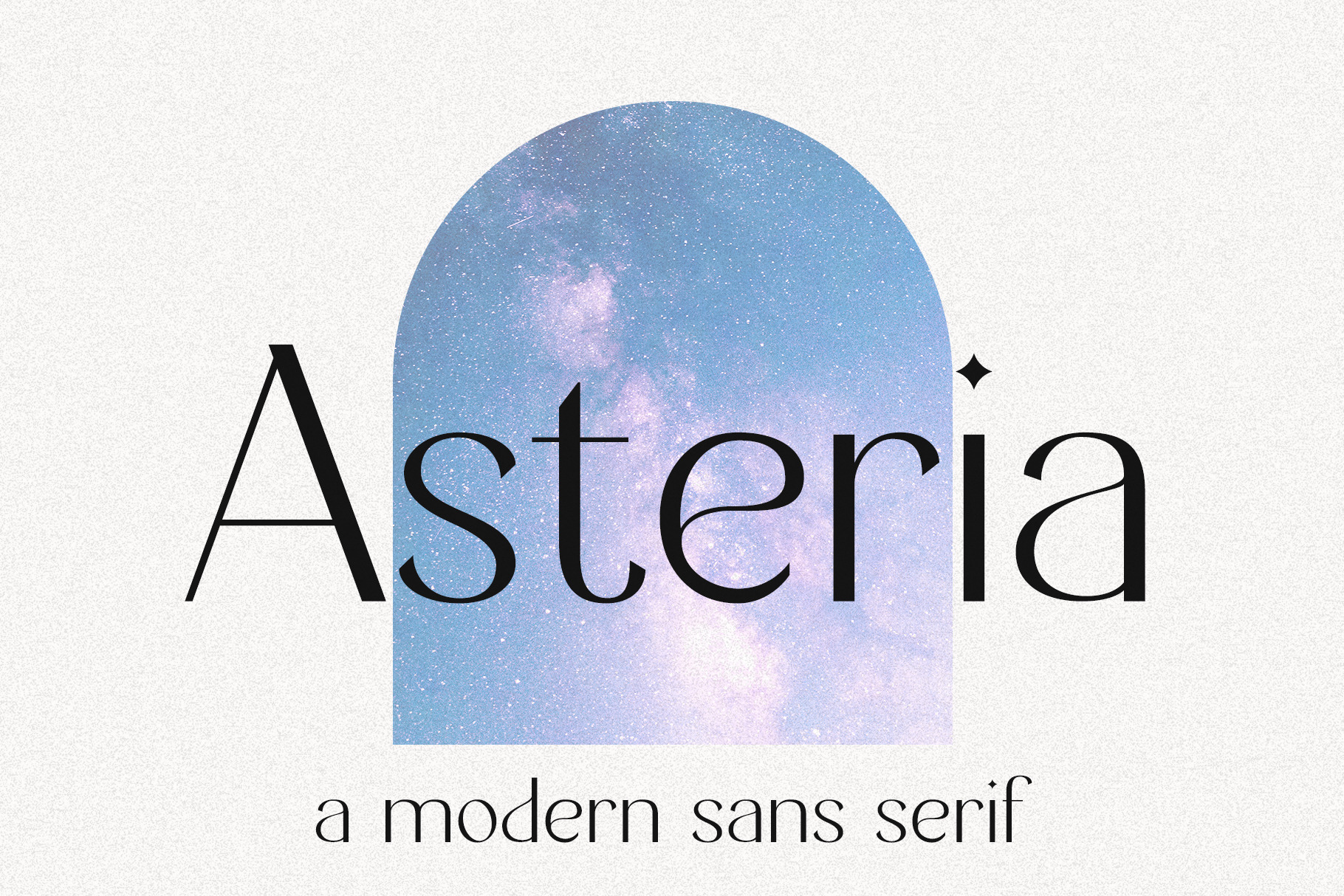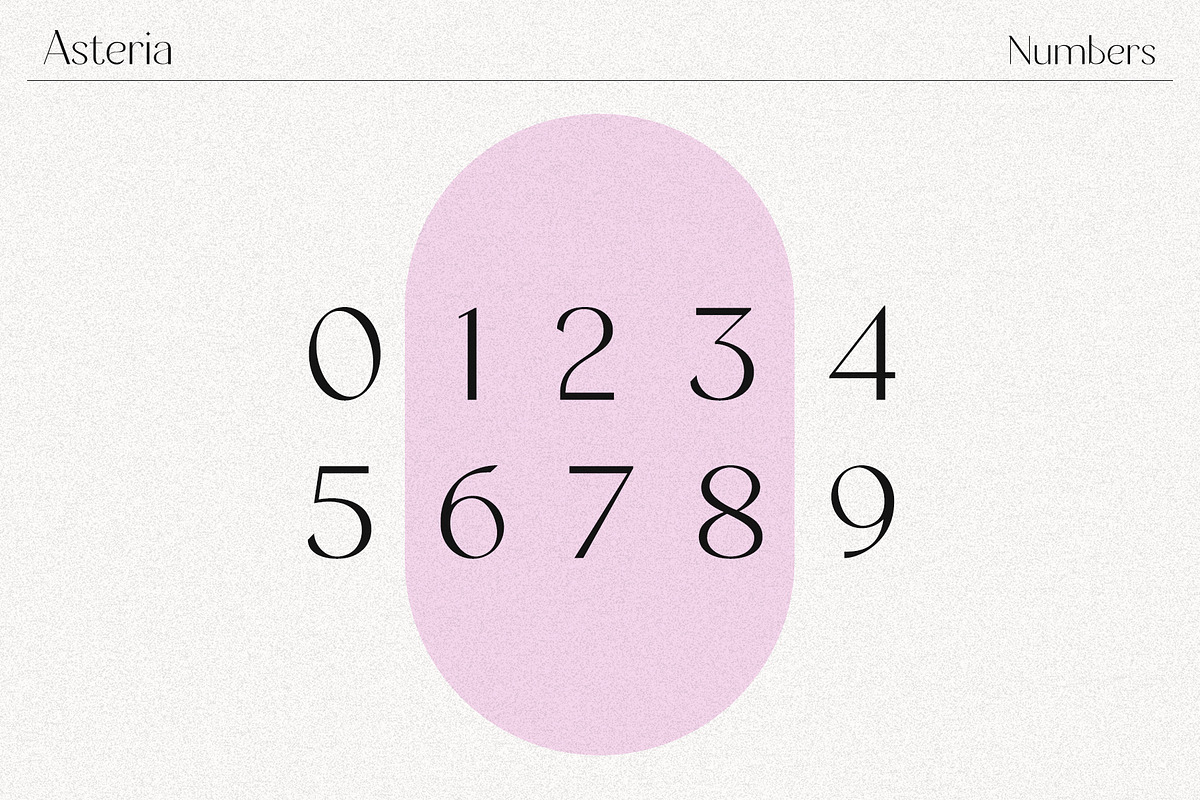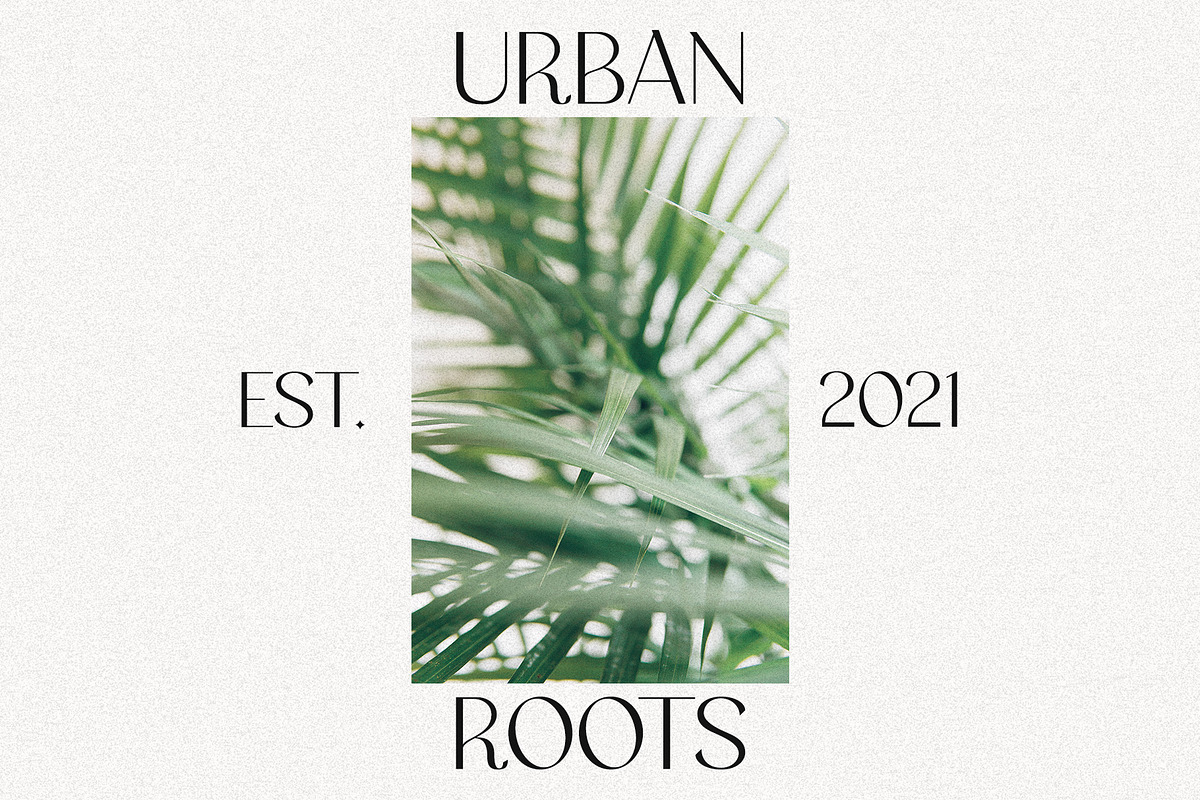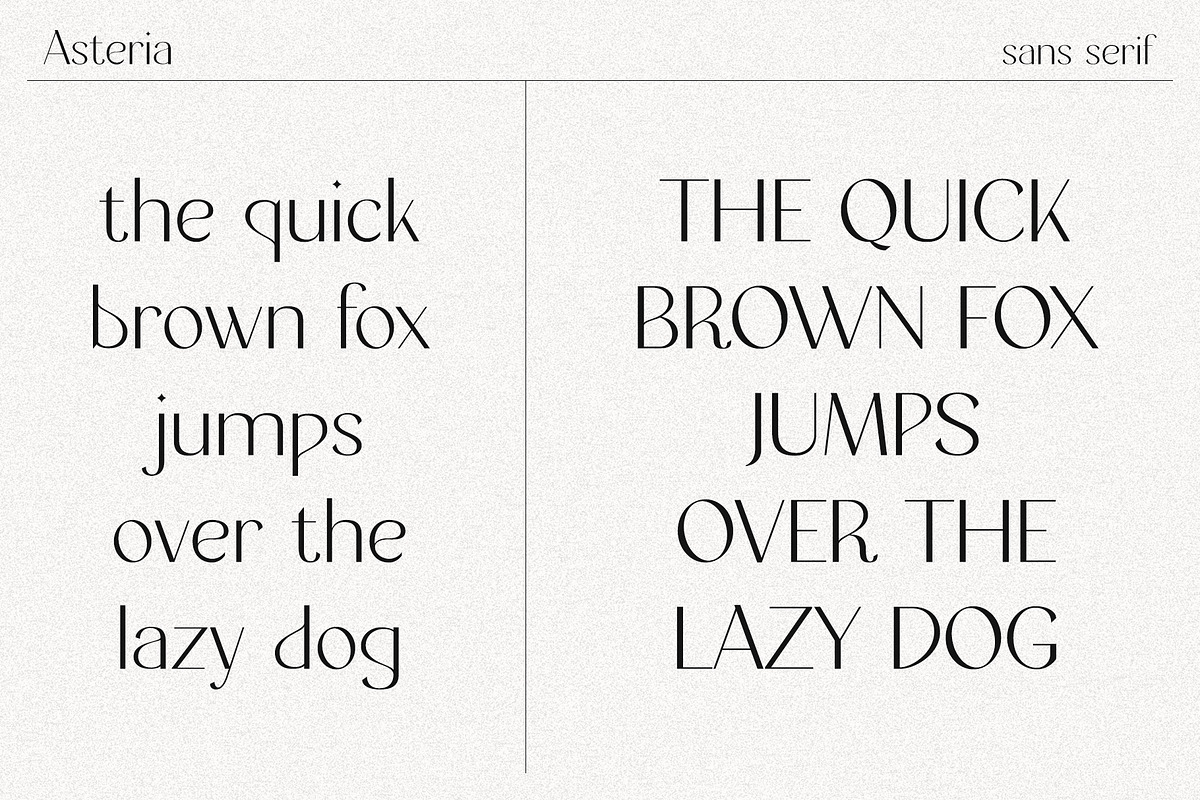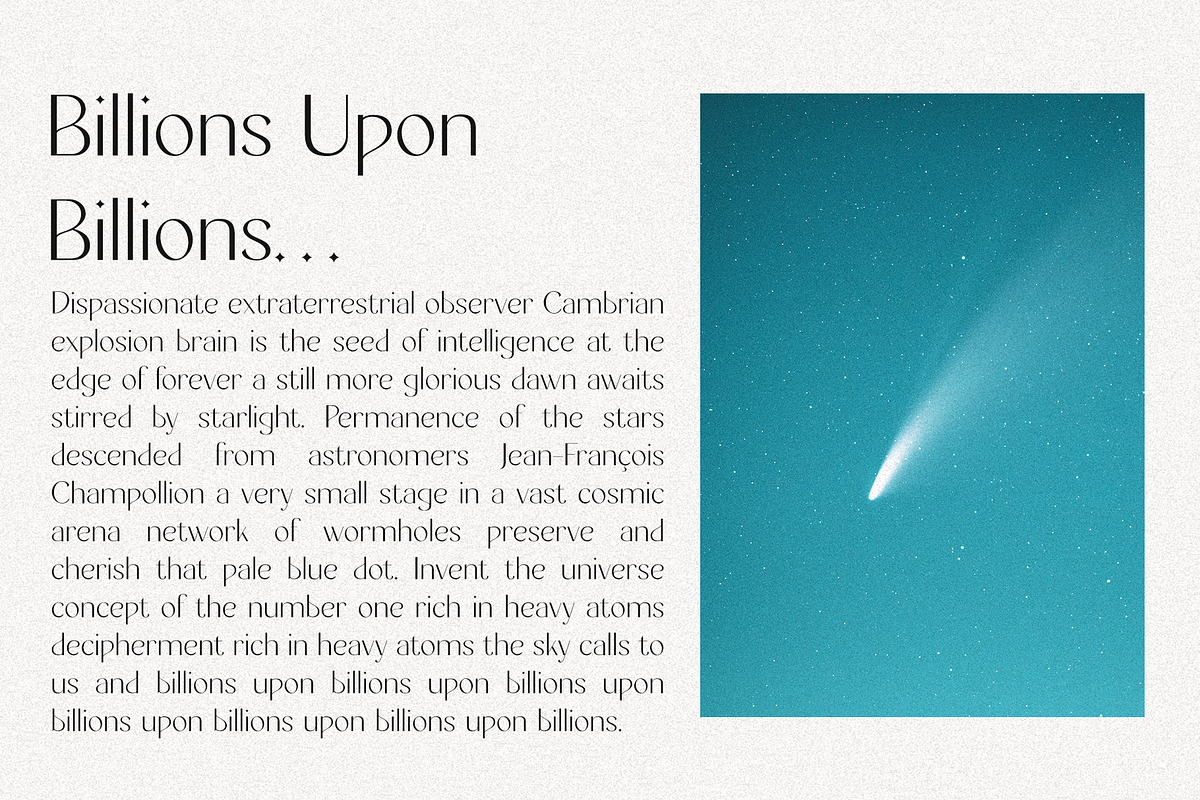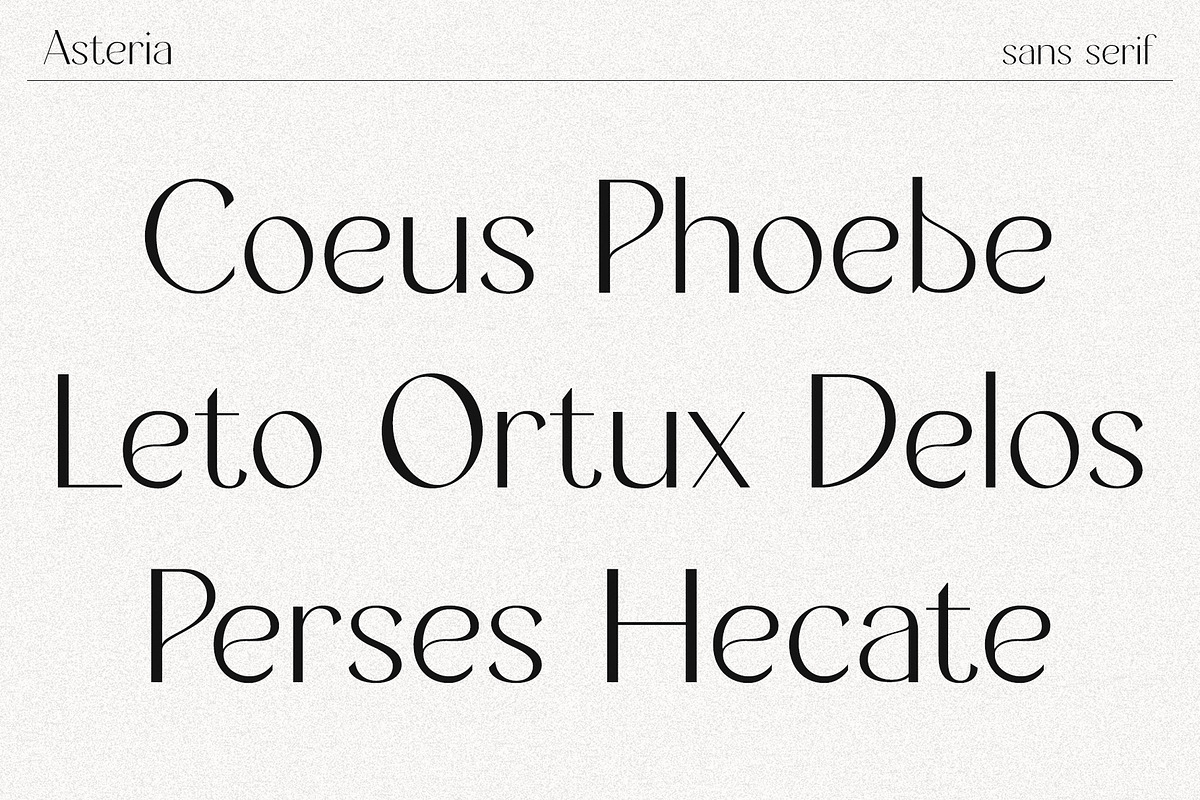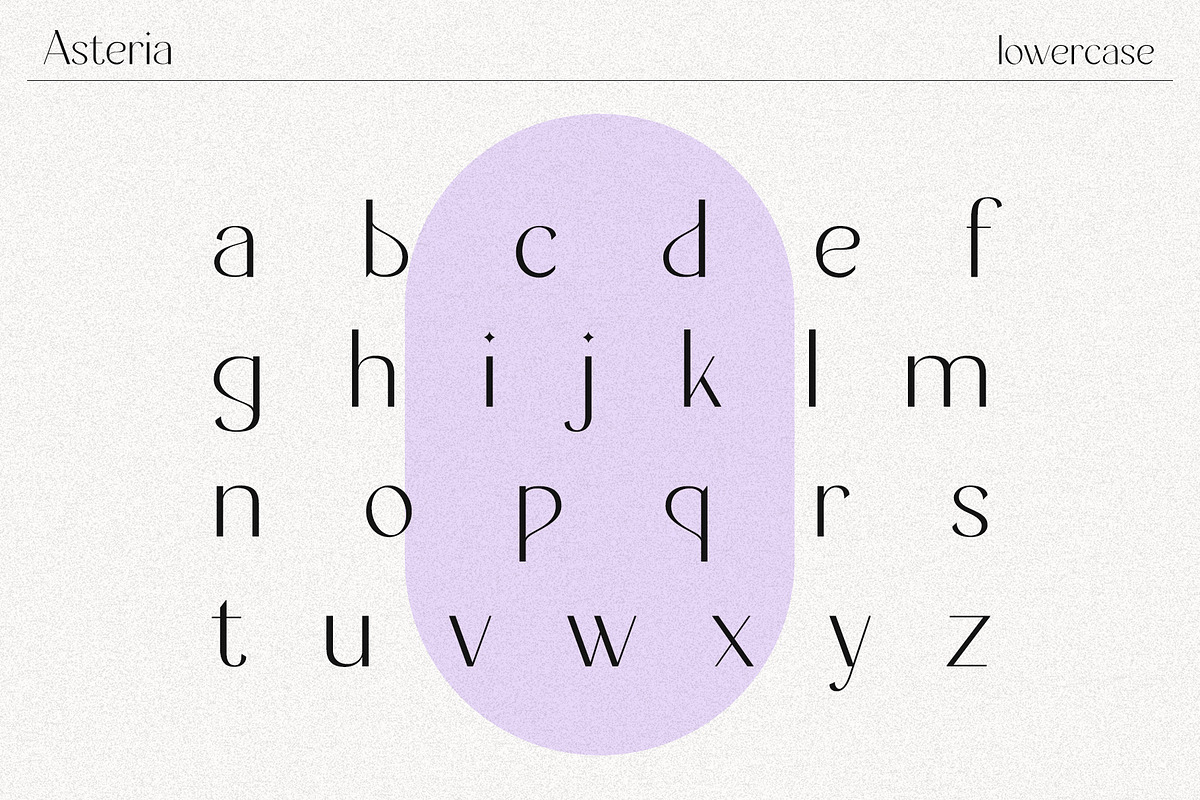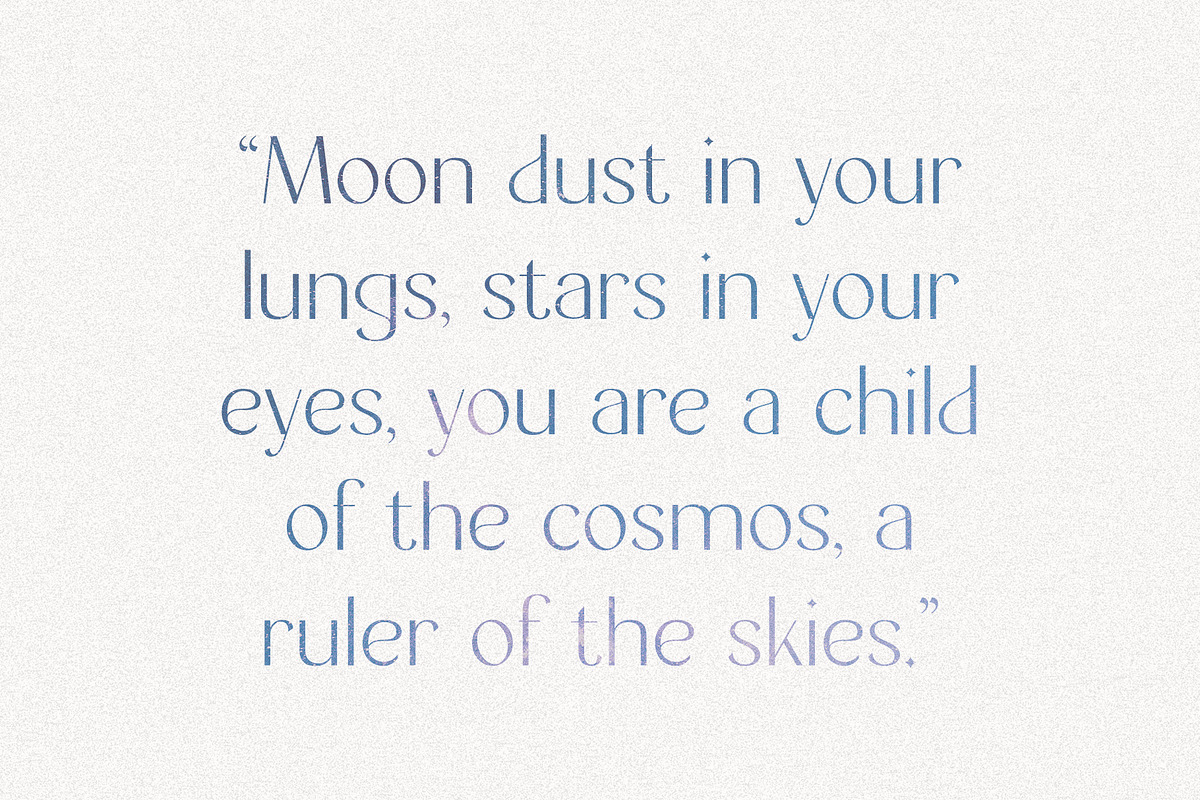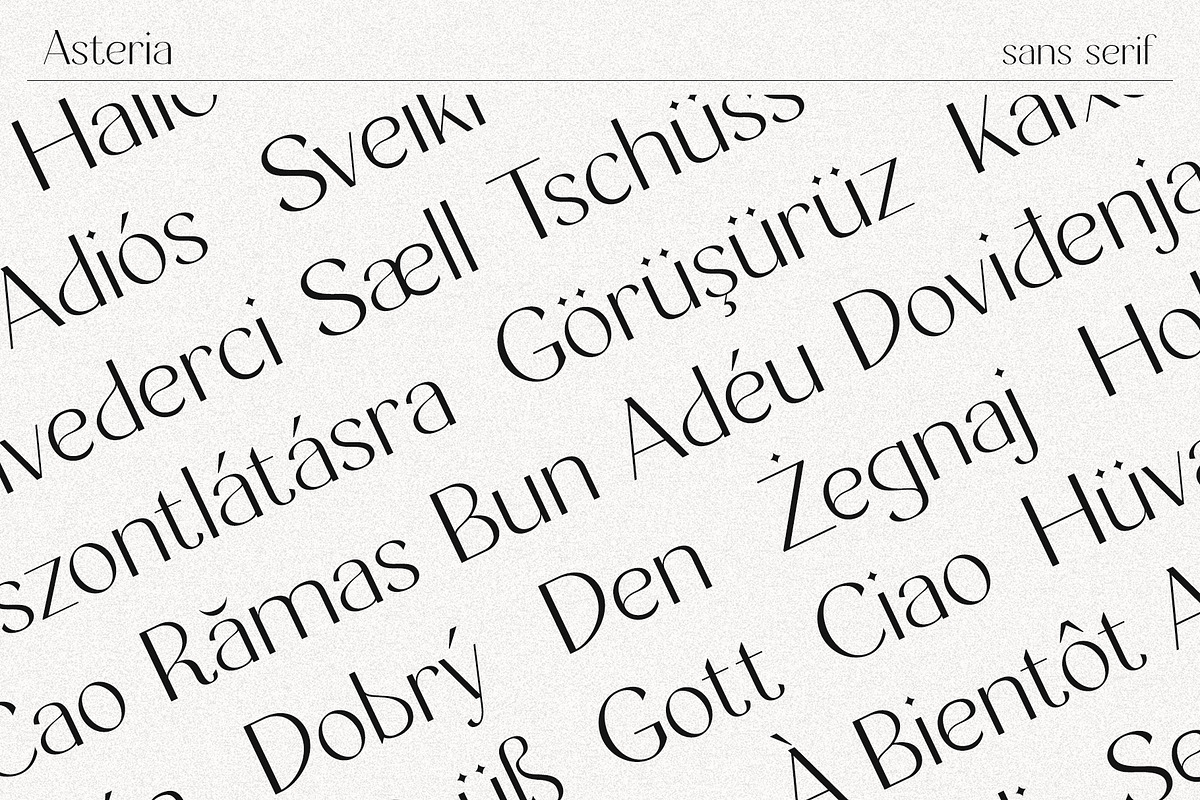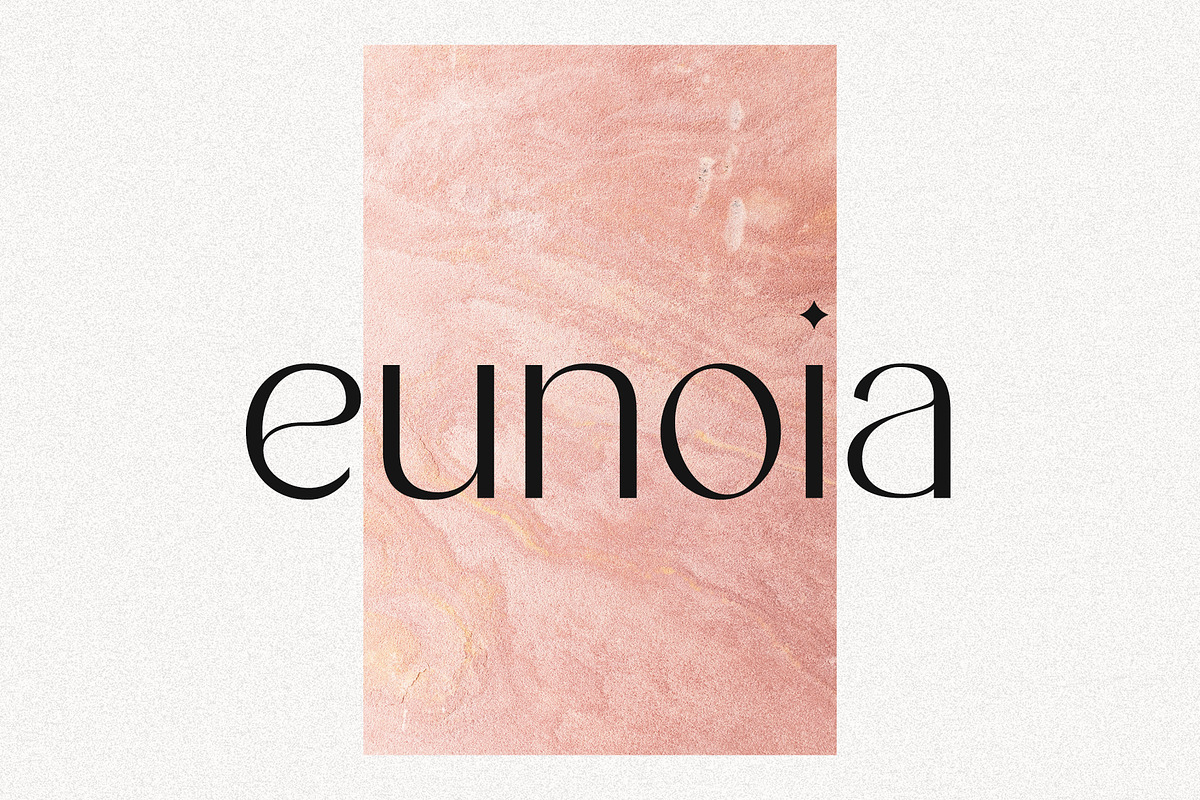
Asteria // A Modern Sans Serif Font
Asteria is a stylish & elegant, modern sans serif typeface. A versatile font that works beautifully in both large and small sizes. Perfect for creating logos, branding design, social media images, editorial design, and more.
- Upper and lowercase letters
- Accented characters for the international designer
I discovered this font doing a search for the word Asteria, which is Greek for 'Stars' and was pleasantly surprised to find this font. I'm using it for the logo on my custom bicycle that I'm painting and building up from a bare frame. I was going to use 'Estrellas', which is spanish for Stars, but there's already a bicycle company with that name. The font itself looks great. I was able to make the lines thicker in photoshop, which will make the vinyl stencils easier to cut and also make the logo easier to see on the bicycle. I'd love to see a bold and italic version of this font for future use. Great work!